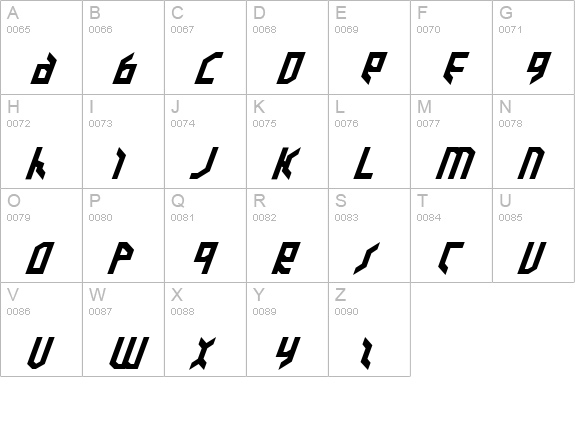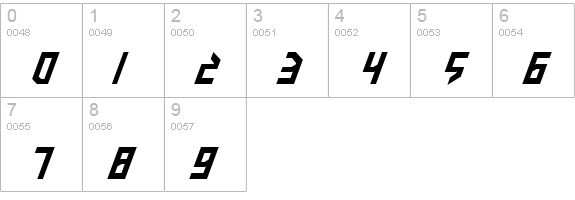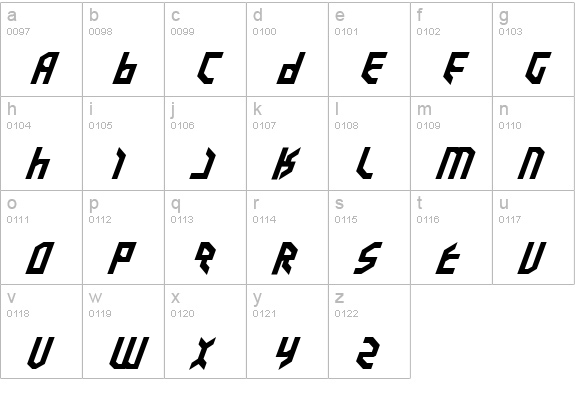
Valkyrie Expanded Bold Italic is a strong, high-contrast, extended-width, italic variant in the Valkyrie typeface family \xE2\x80\x94 well suited to headlines, attention-grabbing titles, and strong calls-to-action.
Introducing Valkyrie Expanded Bold Italic, a striking and dynamic font that exudes power and sophistication. This bold italic typeface features sleek lines and sharp edges, making it perfect for adding a touch of modern flair to your designs. Whether you are working on a branding project, a poster design, or a website layout, Valkyrie Expanded Bold Italic is sure to make a statement. The best part? This versatile font is completely free to download at FontsMarket.com. You can access this unique typeface with just a few clicks, allowing you to enhance your creative projects without breaking the bank. Don't miss out on the opportunity to elevate your designs with the bold and italic charm of Valkyrie Expanded. Download it today and let your creativity soar!